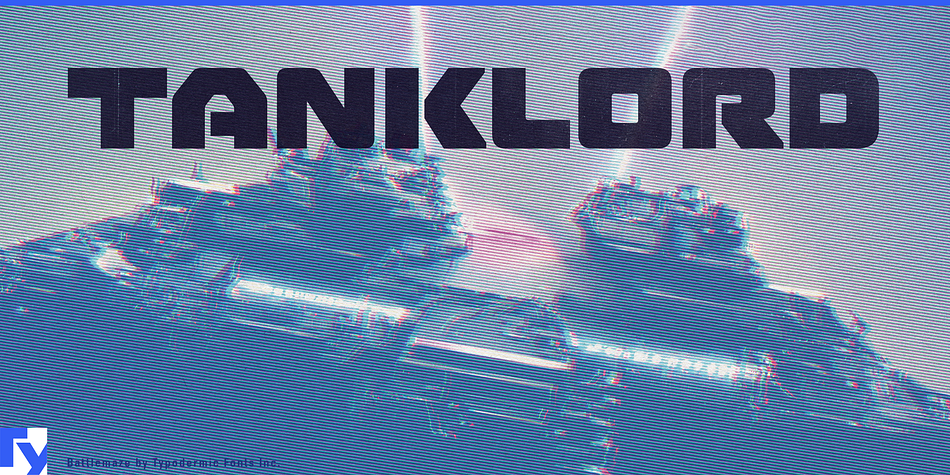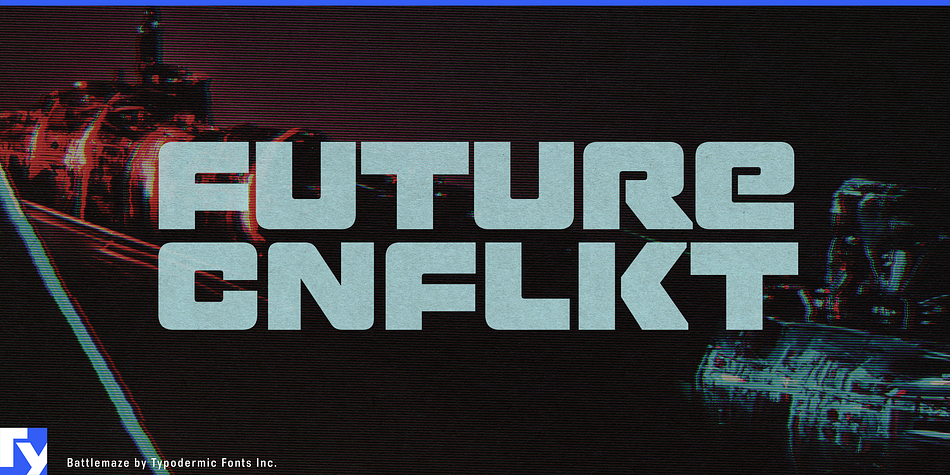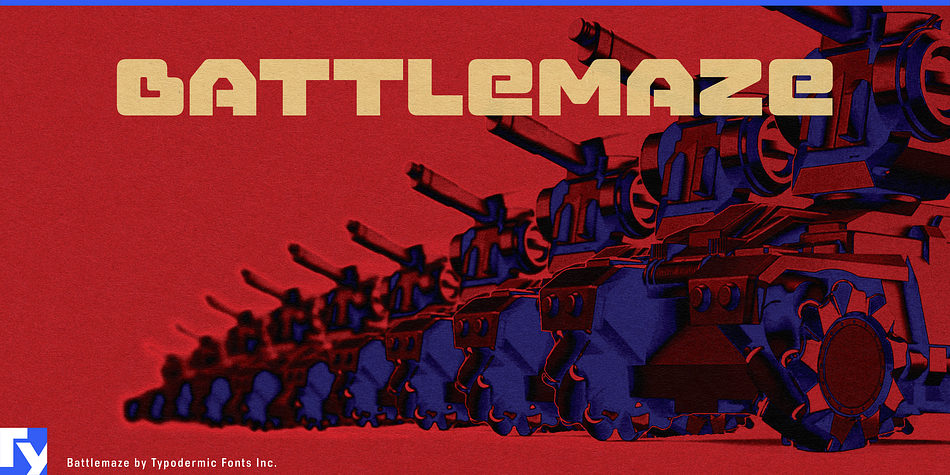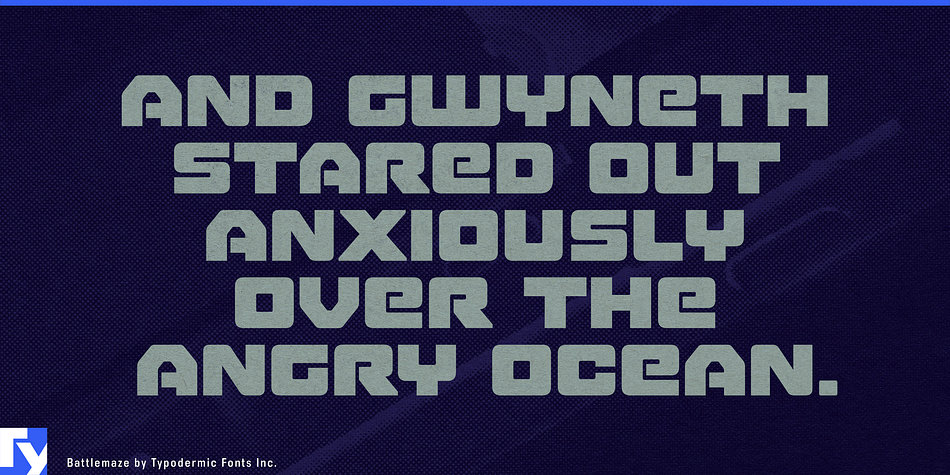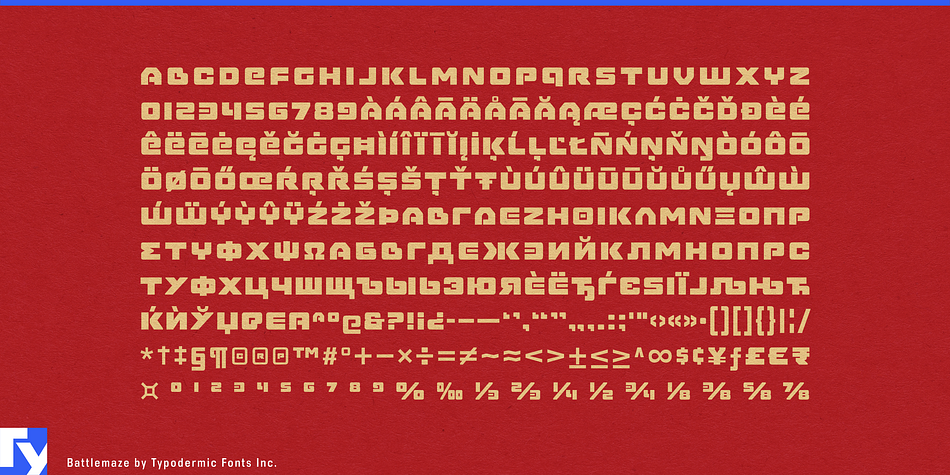
Battlemaze is a display sans font published by Typodermic Fonts Inc.
Battlemaze is an extremely heavy techno headline typeface. The tightly folded line treatment was inspired by Japanese industrial logo designs—the angled A and V were inspired by computer printer fonts on the 1980’s. If your application supports ligatures, the B automatically flips when it precedes a J, period or comma.